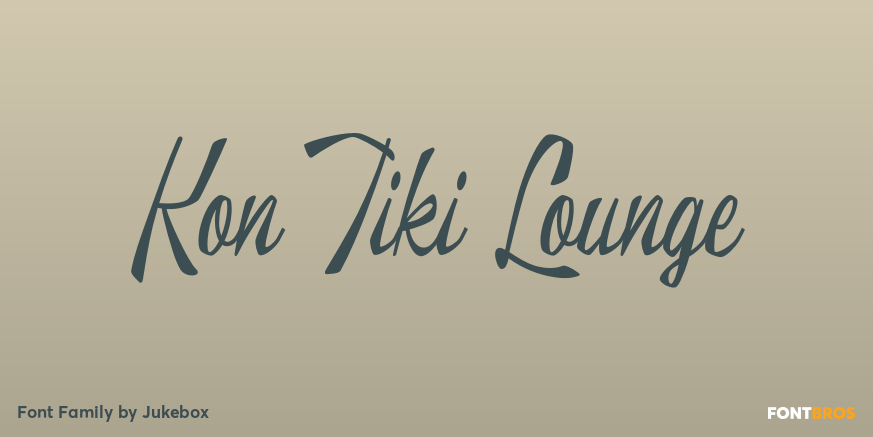
Kon Tiki Lounge
About Kon Tiki Lounge
Kon Tiki Lounge is one of a series of Kon Tiki fonts created to celebrate the culture and design style of mid 20th Century Hawaiian kitch. Kon Tiki Lounge is the second script font in the Kon Tiki collection and this one is more angular and rustic, lending…